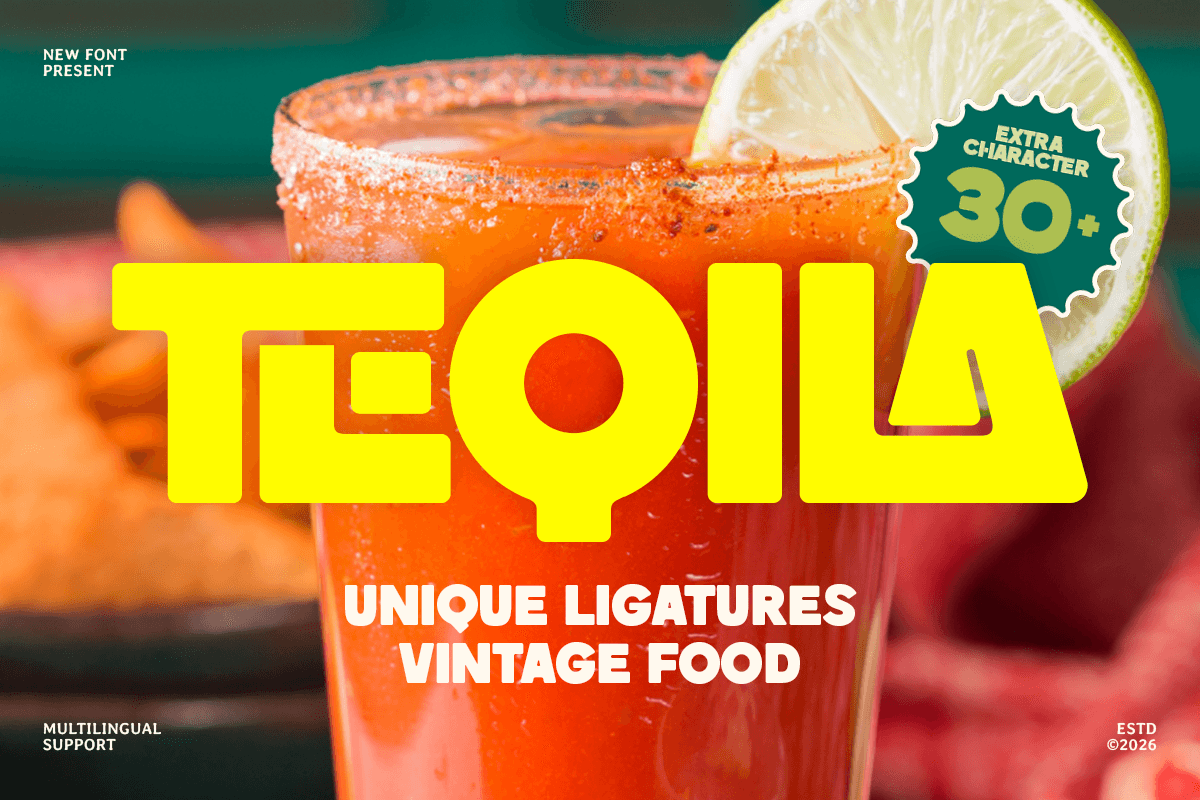
Teqila
-Food Retro Bold FontTeqila - Food Retro Bold Font
TEQILA is a food retro bold font designed to bring nostalgic flavor and bold personality to your typography. With thick letterforms, vintage-inspired rhythm, and a cheerful visual tone, this typeface creates an appetizing look that feels fun, memorable, and instantly attention-grabbing.
Built for food-focused branding, TEQILA works beautifully across restaurant logos, café menus, product packaging, snack labels, posters, signage, social media promotions, and digital marketing visuals. Its retro bold structure helps every headline stand out clearly while adding a warm old-school charm across both print and digital layouts.
Whether you’re launching a vintage food brand, designing classic menu highlights, creating packaging for snacks or beverages, or building playful culinary campaigns, TEQILA provides a bold retro foundation that makes your typography feel delicious, lively, and full of character.
Inspiration Behind TEQILA
TEQILA is inspired by classic food packaging and retro culinary branding—where thick shapes, nostalgic rhythm, and playful energy make products feel more appetizing and inviting. The design focuses on bold visual weight and vintage warmth to support food-related projects with a flavorful, memorable, and brand-ready look.
TEQILA Font Features:
Retro bold letterforms with appetizing food-brand character
Perfect for restaurant branding, menus, and packaging design
Strong readability for product names and promotional headlines
Vintage-inspired style with playful visual appeal
Food logos, restaurant branding, and café identity systems
Menu headers, specials boards, and promotional graphics
Packaging, labels, stickers, and snack product branding
Posters, signage, banners, and in-store marketing visuals
Social media promotions and retro food campaign designs
Make your food branding look bold and nostalgic with TEQILA—a retro food font made for delicious vintage visual impact. ✨